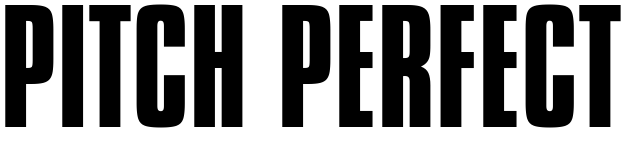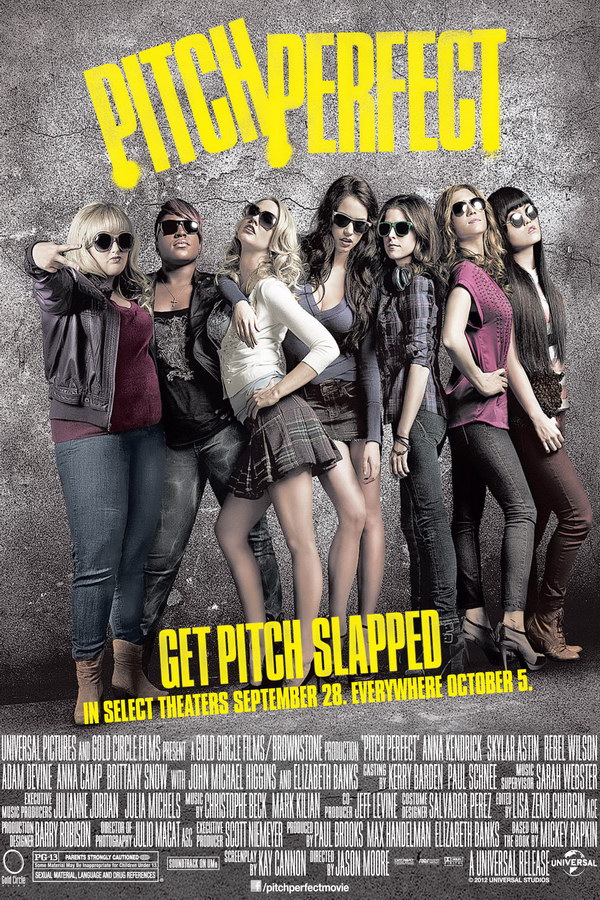
Pitch Perfect Font
ComedyPitch Perfect is a 2012 musical comedy film about an all-girl a cappella group, the Barden Bellas, who compete against their male counterparts and strive to win the national championship while dealing with personal conflicts and challenges.
The movie's title on the poster was created using Compacta Regular font, which was modified slightly for the letter "P". Compacta is a commercial font designed by Fred Lambert. More information about the font can be found here.